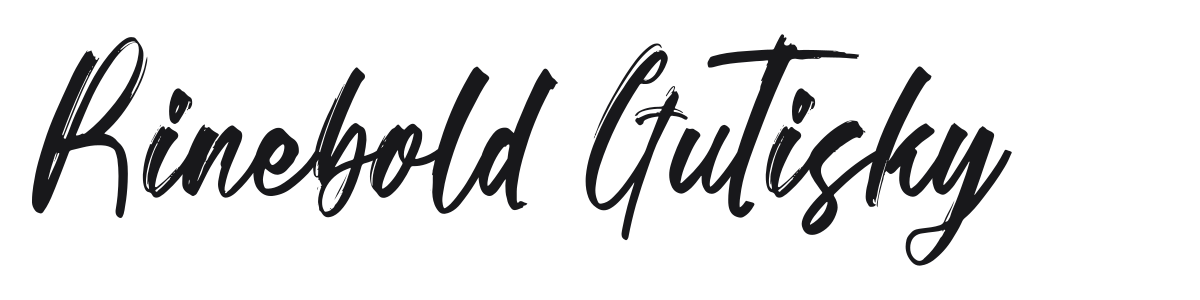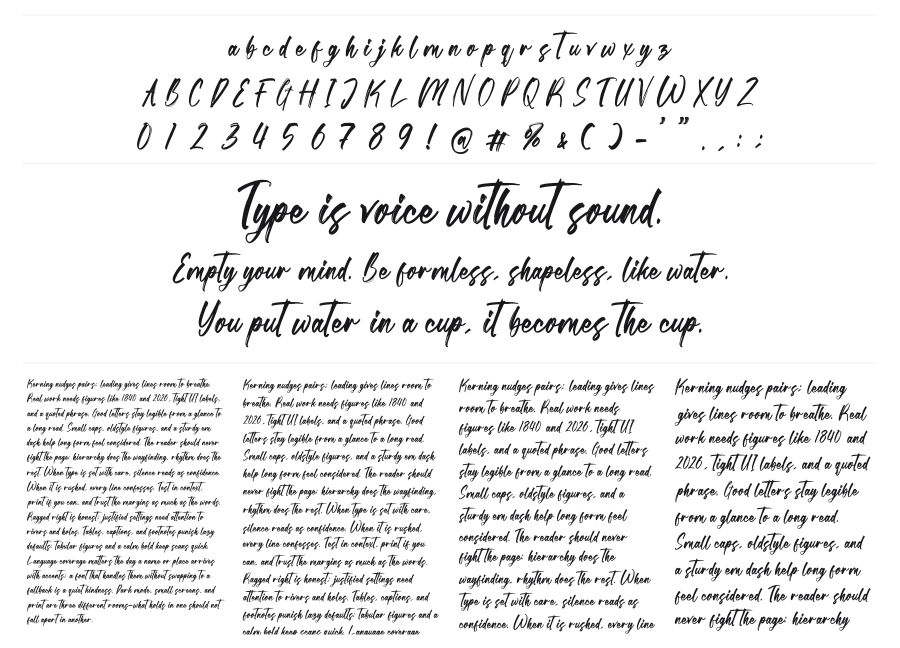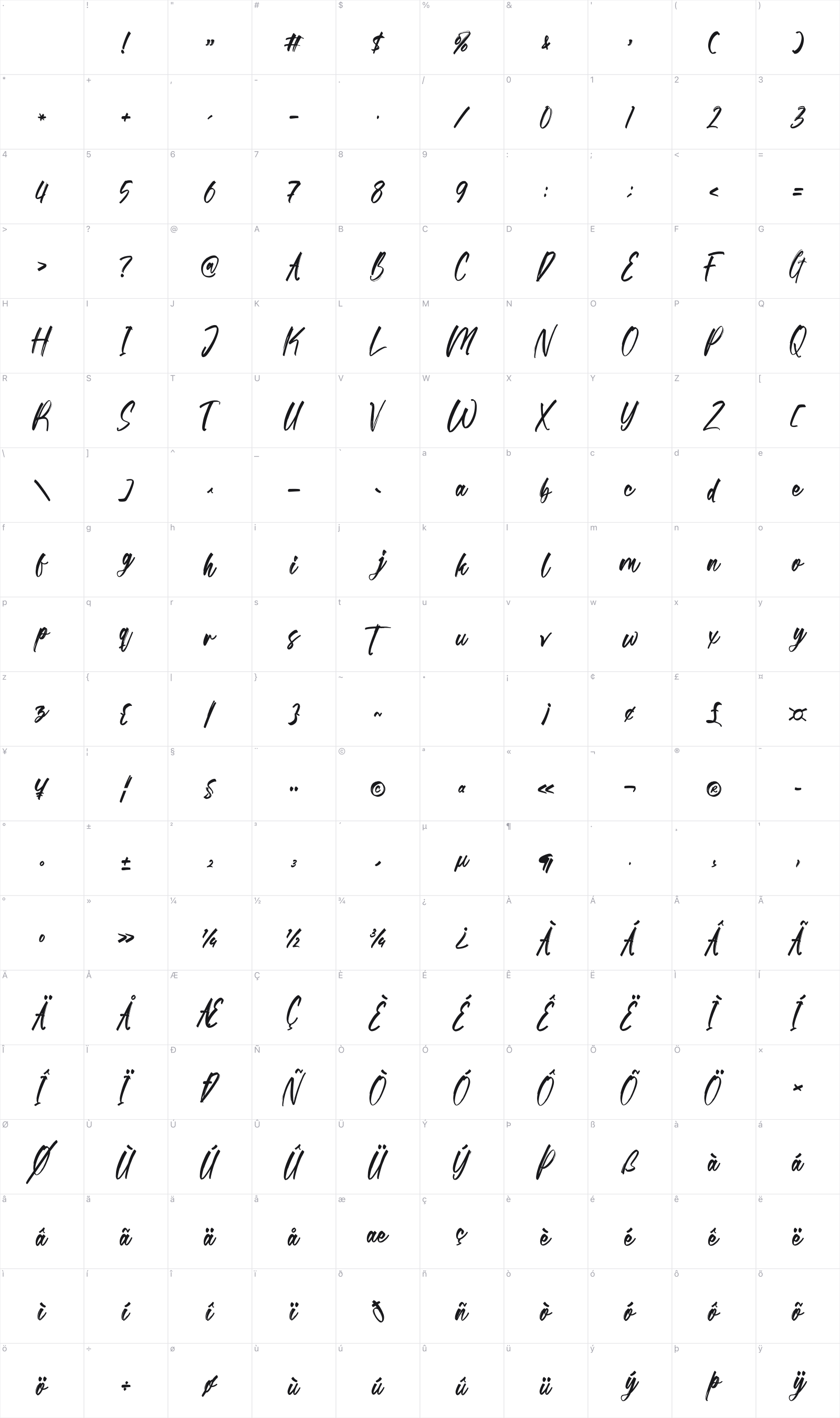
Rinebold Gutisky
Rinebold Gutisky is a bold brush script with inky, textured strokes and a loose, spontaneous energy. The high contrast between thick downstrokes and wispy hairline connectors gives it an authentic hand-lettered quality that digital scripts often lack. It works best at large sizes where all that brushy character can breathe.